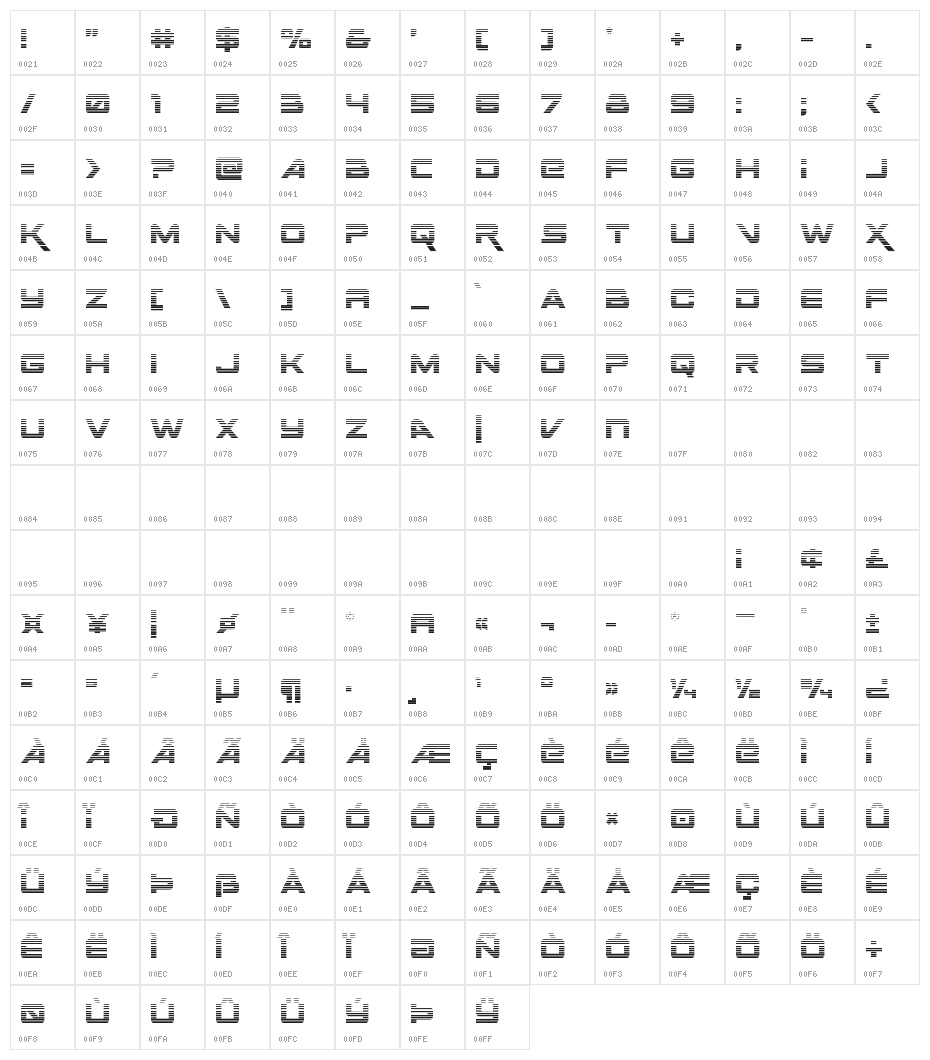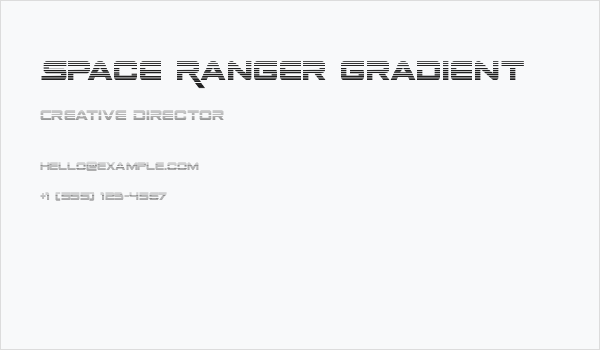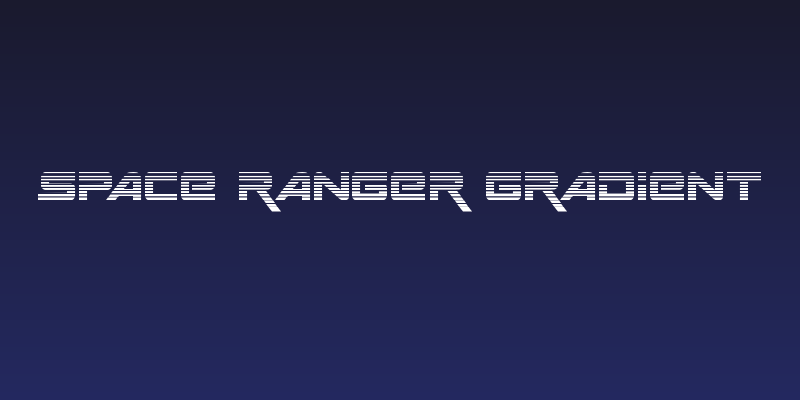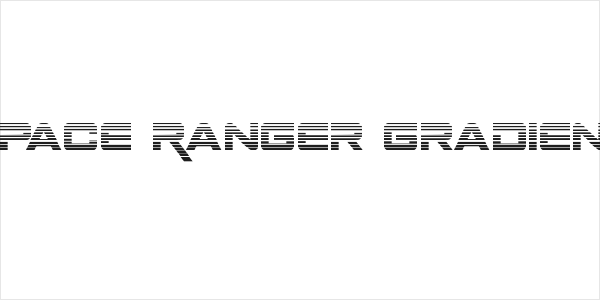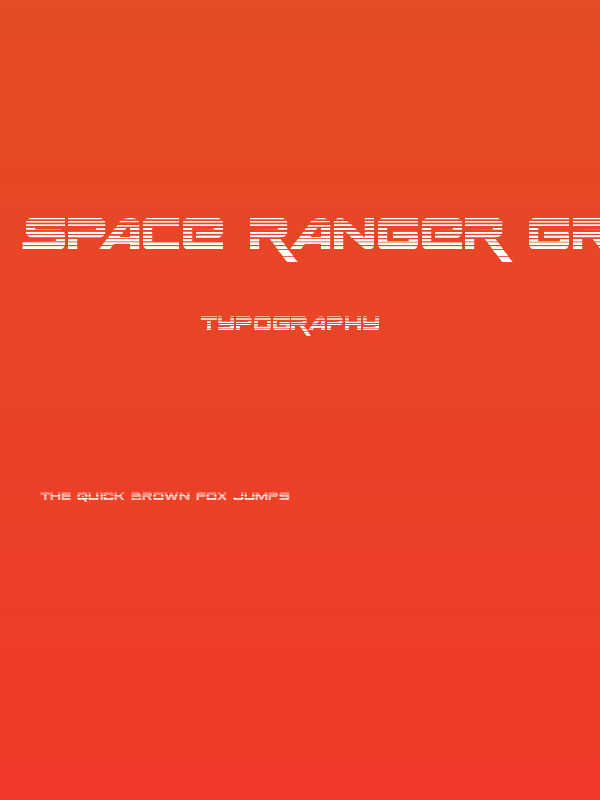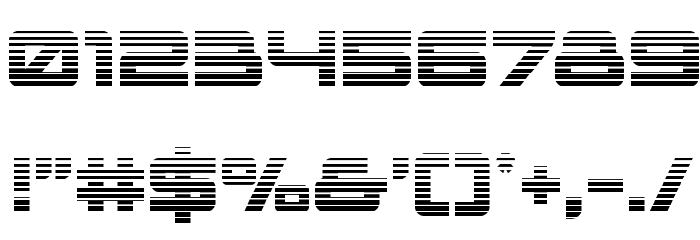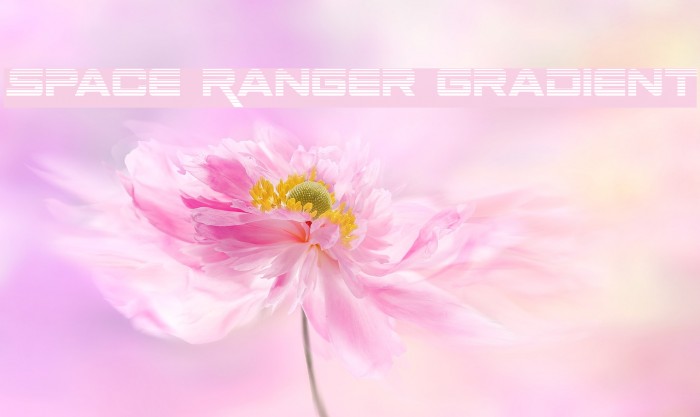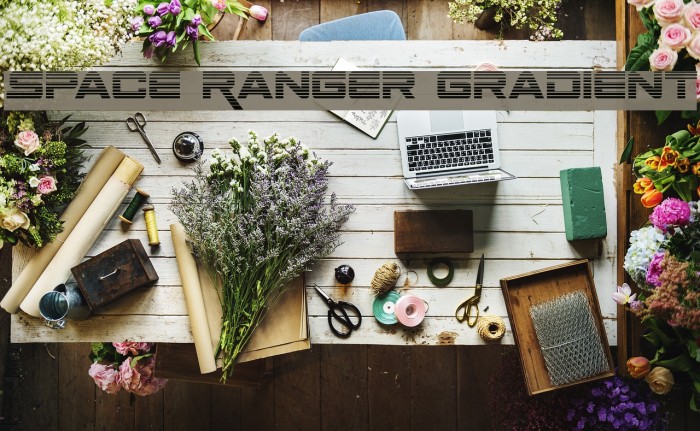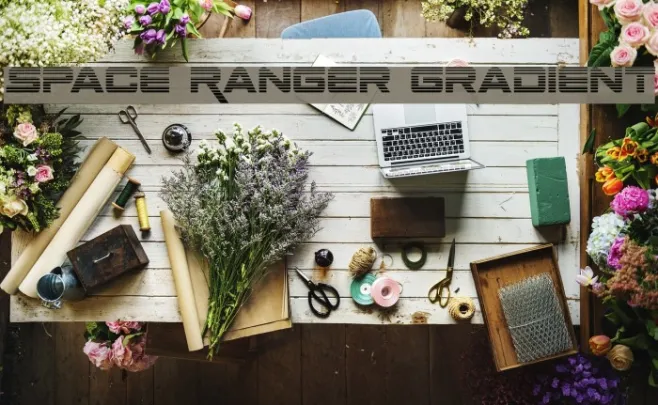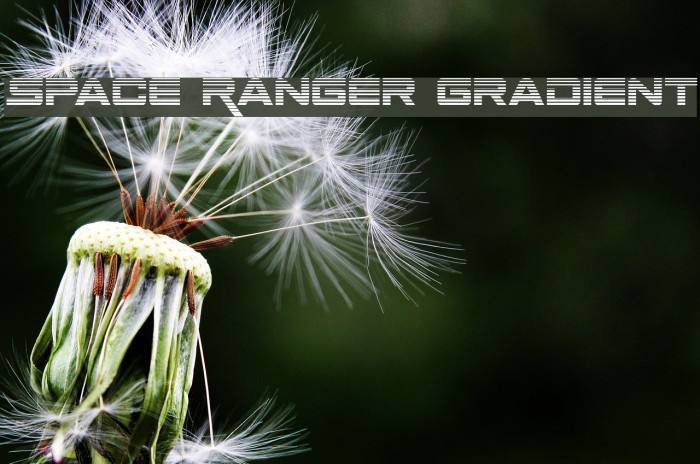
Space Ranger Gradient Font
Space Ranger Gradient Description
This font features a futuristic and dynamic design, characterized by its bold, geometric letterforms and horizontal line patterns that create a sense of movement and energy. The uppercase and lowercase letters maintain a consistent style, with sharp angles and a sleek, modern appearance. The numerals and special characters are designed to match the overall aesthetic, making the font suitable for a variety of creative applications. Its unique style is reminiscent of digital and sci-fi themes, making it ideal for projects that require a contemporary and cutting-edge look.
| Proposed Projects | Ideal for sci-fi themed designs, tech branding, video game titles, and futuristic posters. |